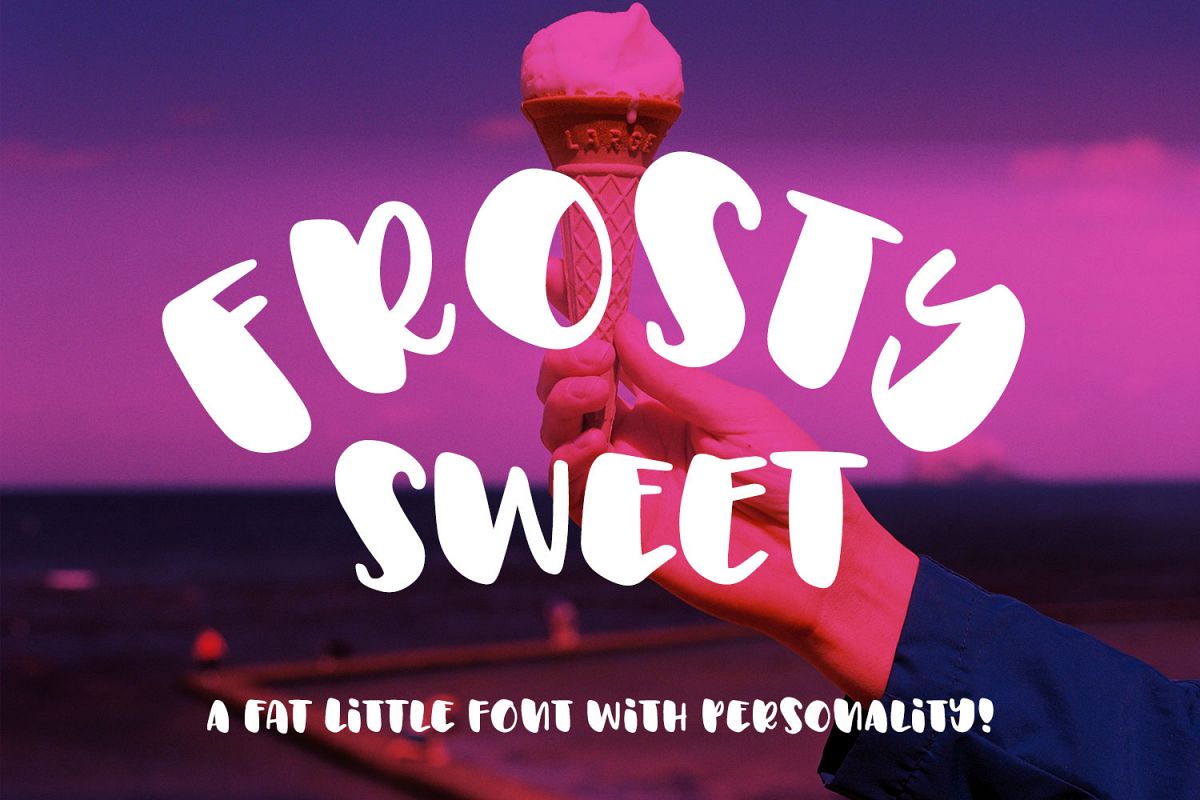
Frosty Sweet is a plump, fun new font for all of your projects! It has two uppercase alphabets that you can mix and match for a fun hand-lettered look. It's great for kids, but also fun for grownups.
Frosty Sweet comes with two full sets of uppercase letters, numbers 0-9, tons of punctuation, and over 300 extended Latin characters to support Catalan, Czech, Danish, Esperanto, Estonian, Finnish, French, Gaelic, German, Icelandic, Irish, Italian, Latvian, Lithuanian, Norwegian, Polish, Portuguese, Romanian, Serbian (Latin), Slovak, Slovenian, Spanish, Swedish, Turkish, Welsh, and more!